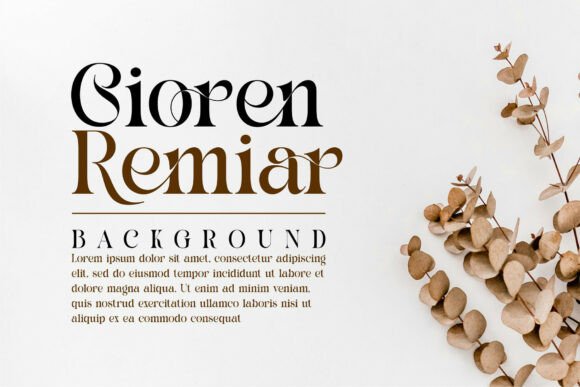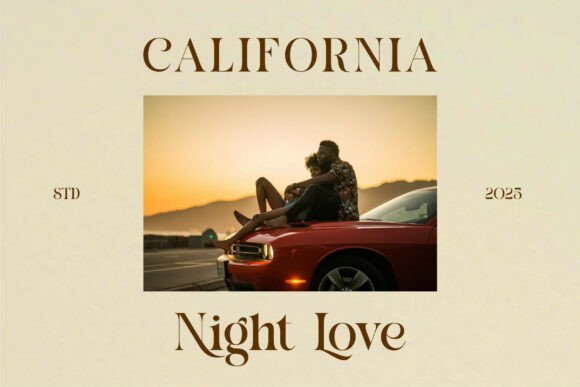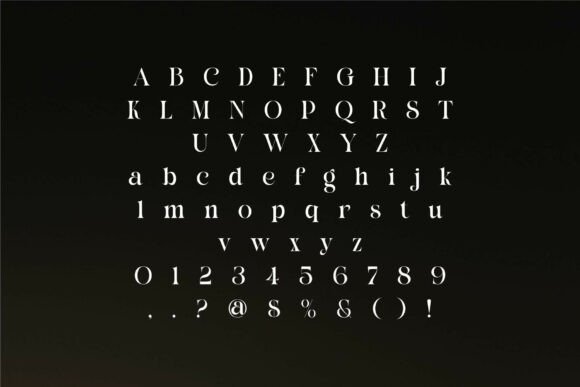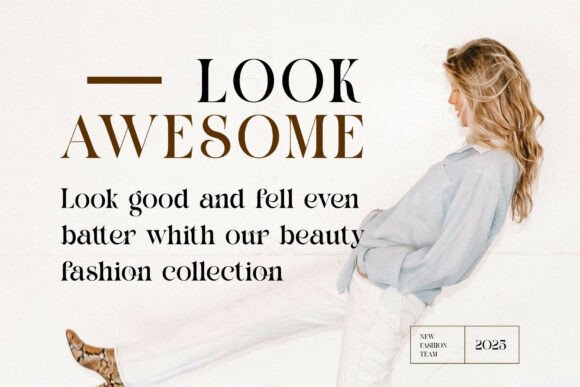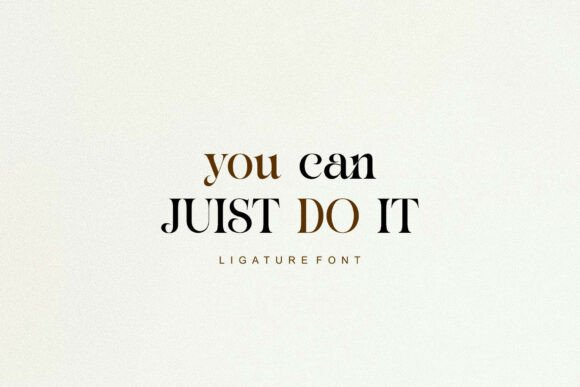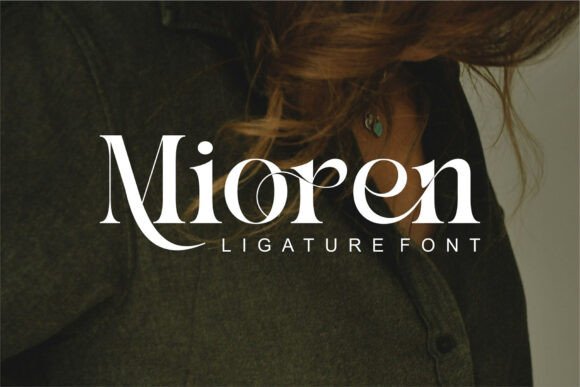
Introduction to Mioren Font
Introducing the new Mioren Serif Family font with various weights.
It is a fashionable, modern, and elegant serif font with some sexy, stylish extras This is perfect for branding and logo design.
Key Features of Mioren Font
Why Choose Mioren Font?